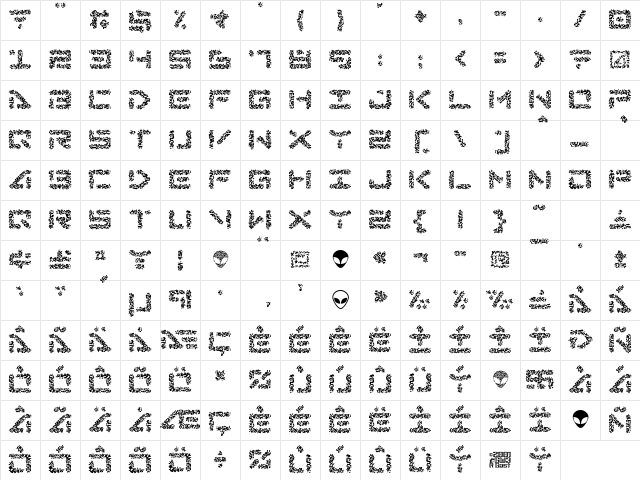
Abduction IV Regular Free Font
Abduction IV Regular
Foundry: GreyWolf WebWorks
Designer: Rich Gast
Complete Abduction IV Regular glyph index. Displaying only characters natively supported by Abduction IV Regular font.
Design Context for Abduction IV
Abduction IV is a composed and adaptable typeface that performs quietly and consistently across a wide range of design contexts.